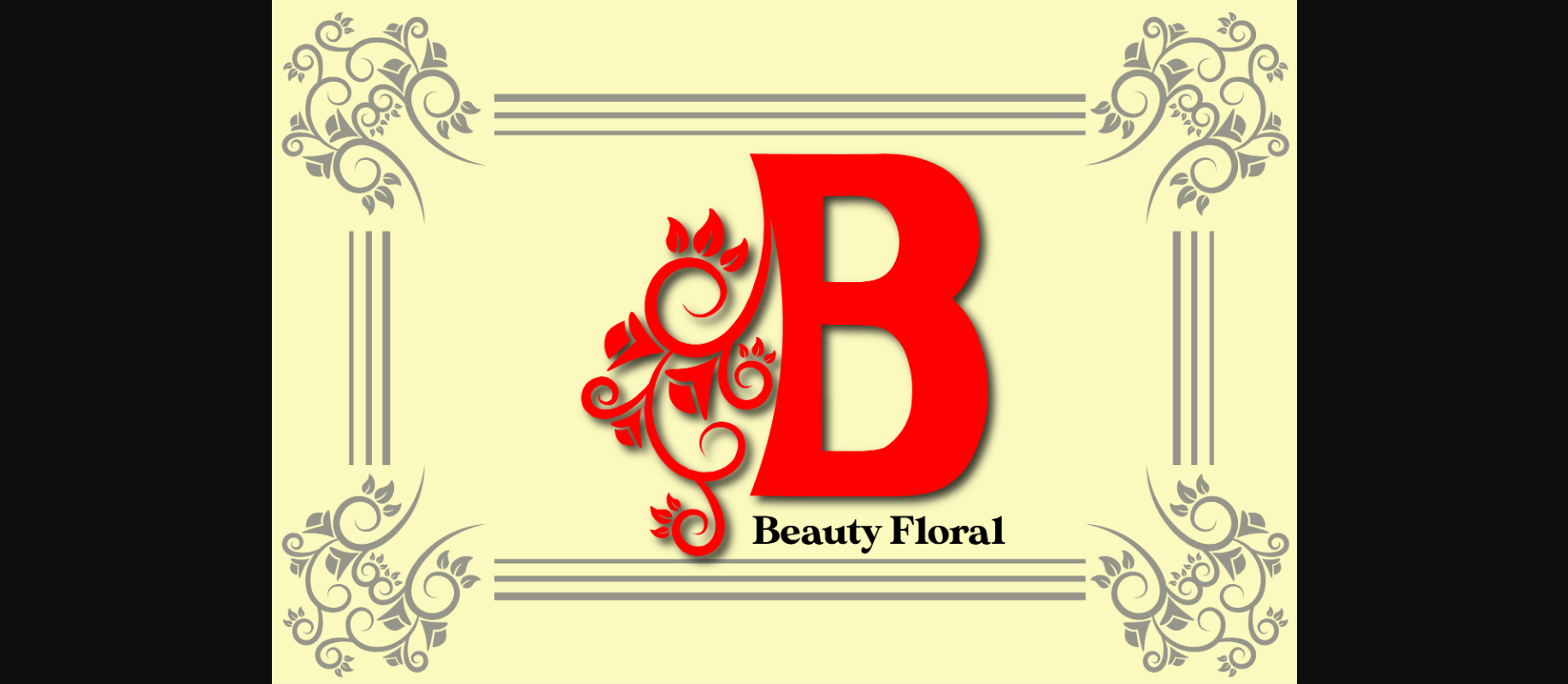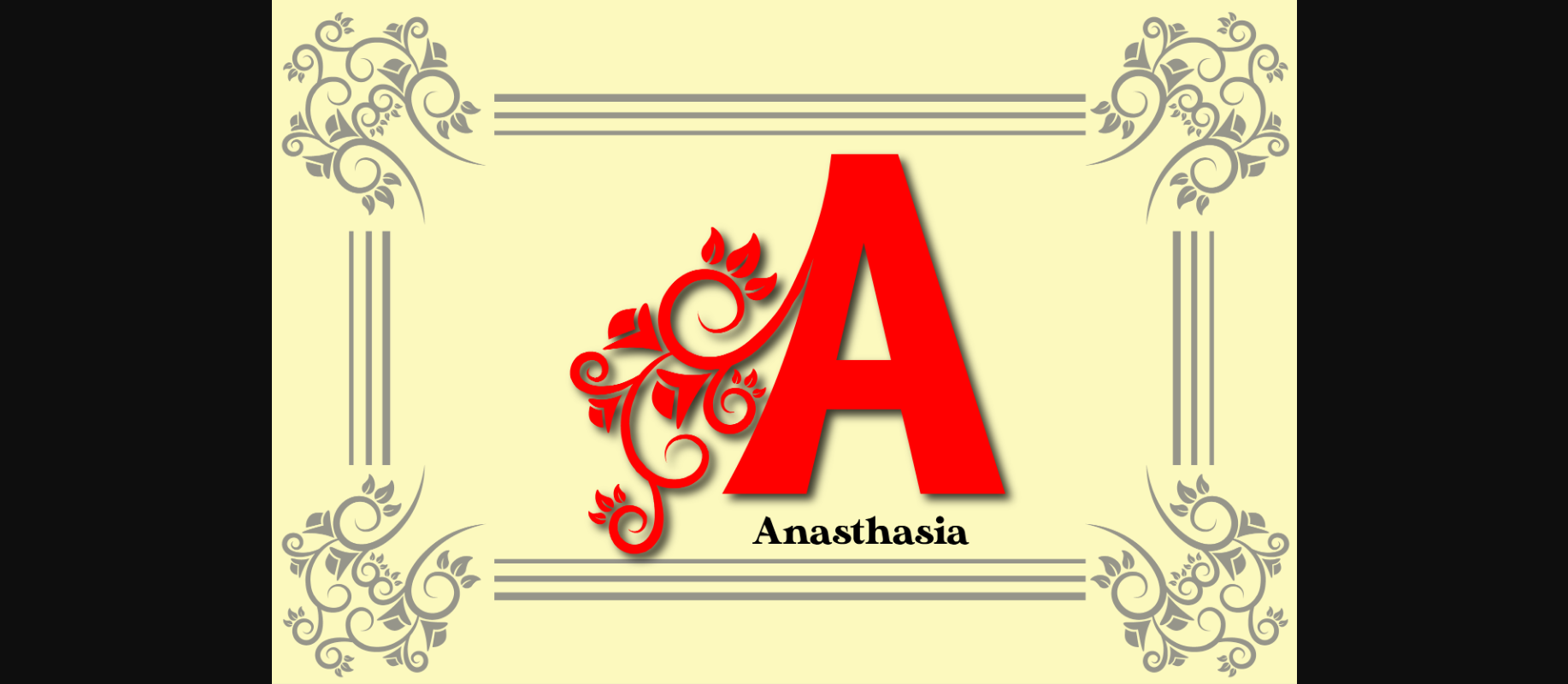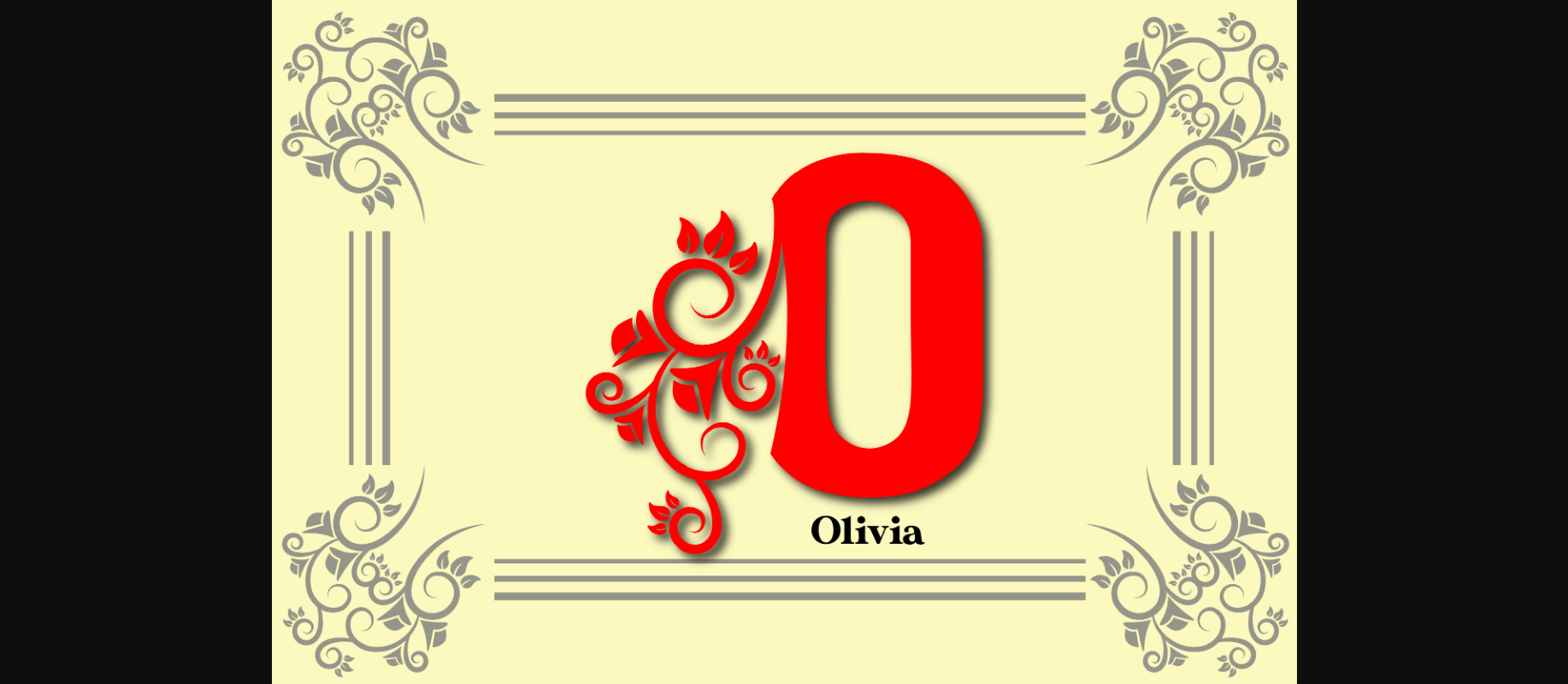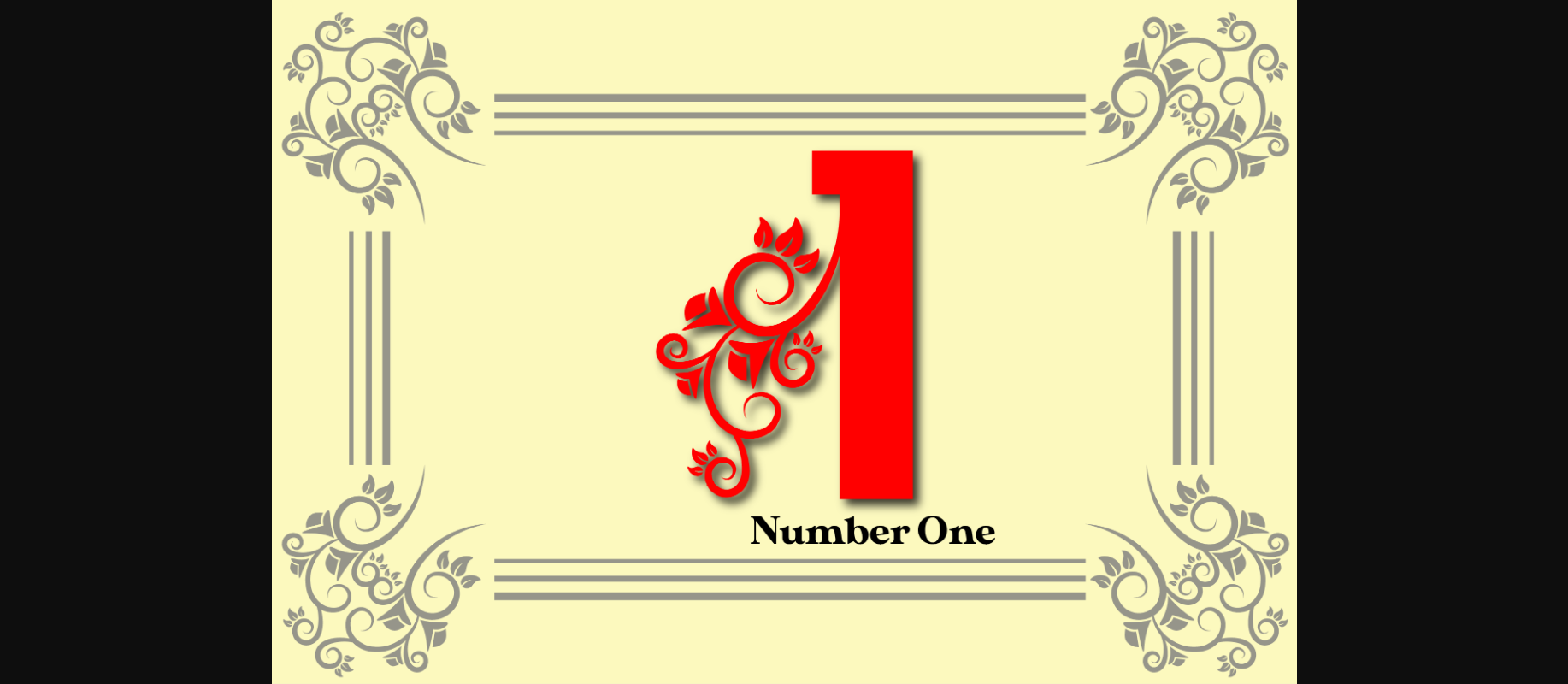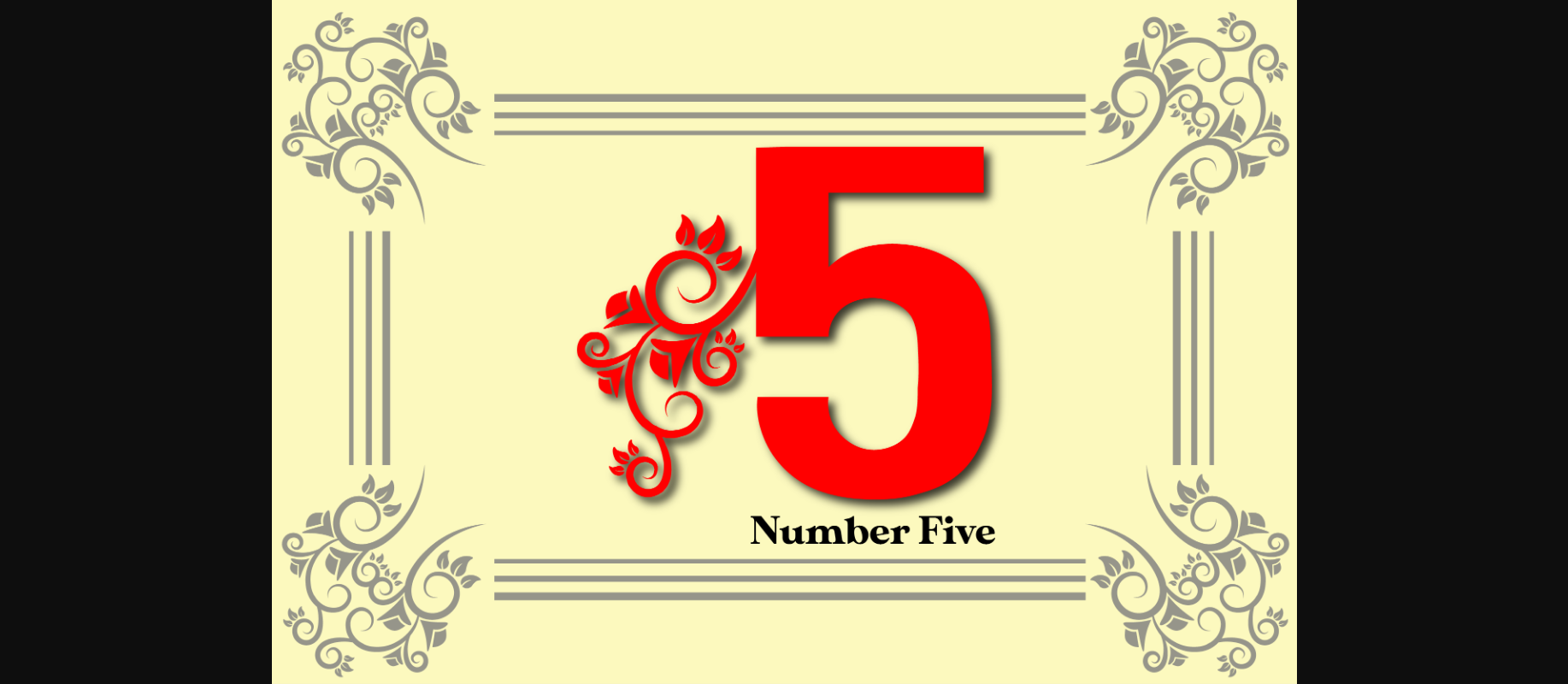
Beauty Floral is a beautiful and sweet decorative font that is very suitable to be used as a design material for various souvenir products. Add it to your creative projects and watch them capture your audience’s attention.